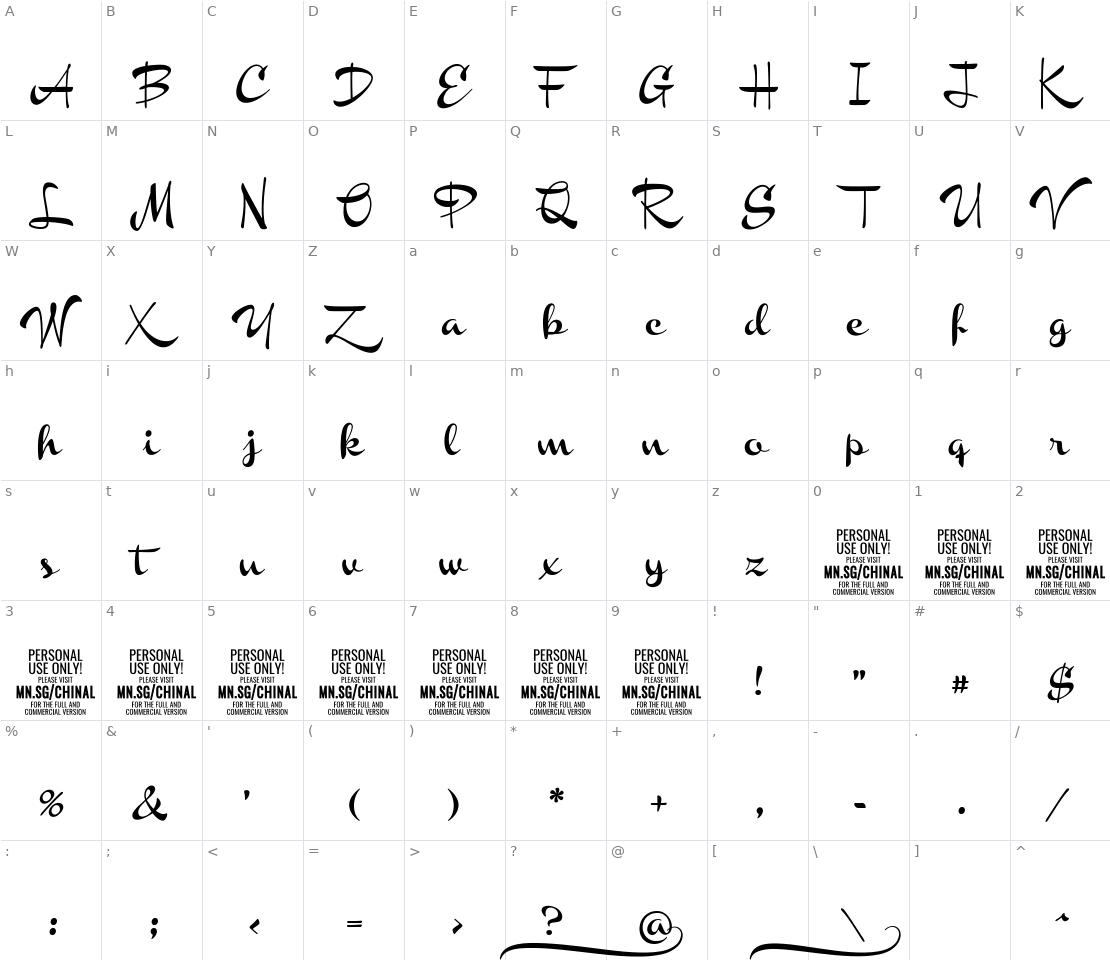
Chinal
Chinal is a bold connected script from Måns Grebäck with flowing, brush-driven strokes that balance elegance with an easygoing casualness. The letterforms have real energy and movement, thick enough to hold their own in headlines and branding without feeling stiff or overly formal. Grebäck is known for polished script work, and this one sits comfortably in that tradition, ready for logos, packaging, and editorial headers where you need warmth with a confident hand.